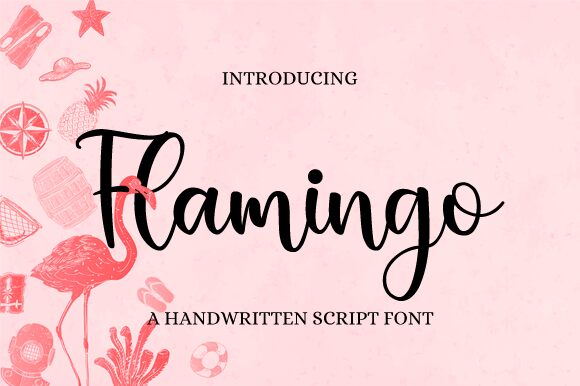
Flamingo, a creation by Nirmala Creative, stands out with its semi-light handwritten style that exudes a personal touch. The font's fluidity and elegant curves lend an air of sophistication and whimsy, making it an exceptional choice for projects that require a bespoke feel. From wedding invitations to branding materials, Flamingo's aesthetic appeal resonates through its seemingly effortless grace and dynamic movement within each character.
With a style that harkens back to classic calligraphy yet feels modern and fresh, Flamingo is versatile enough to enhance the visual storytelling of any creative endeavor. Its semi-light weight strikes the perfect balance between readability and artistic flair, ensuring that your message not only captivates but also remains clear and accessible.
Embrace the charm of Flamingo for your next design project where personality and elegance are paramount.